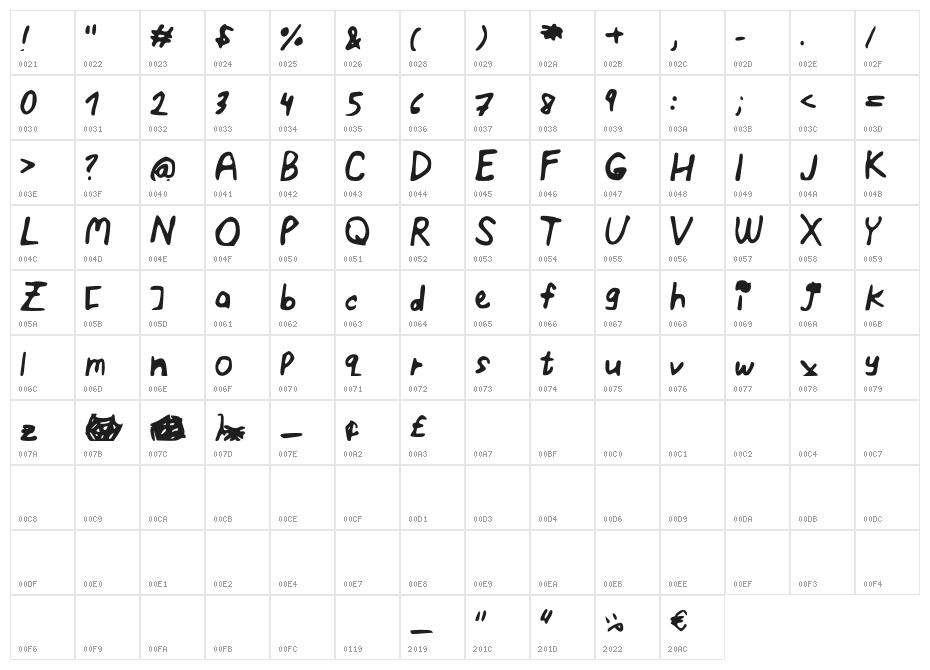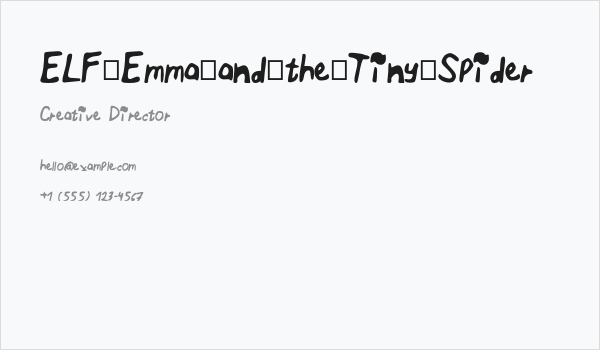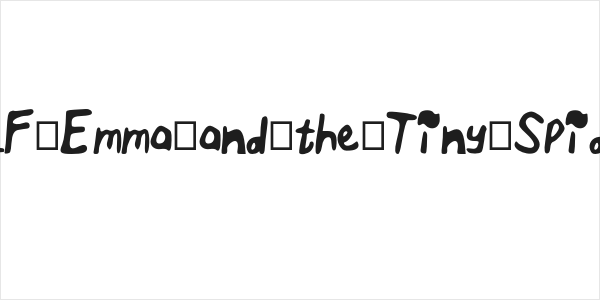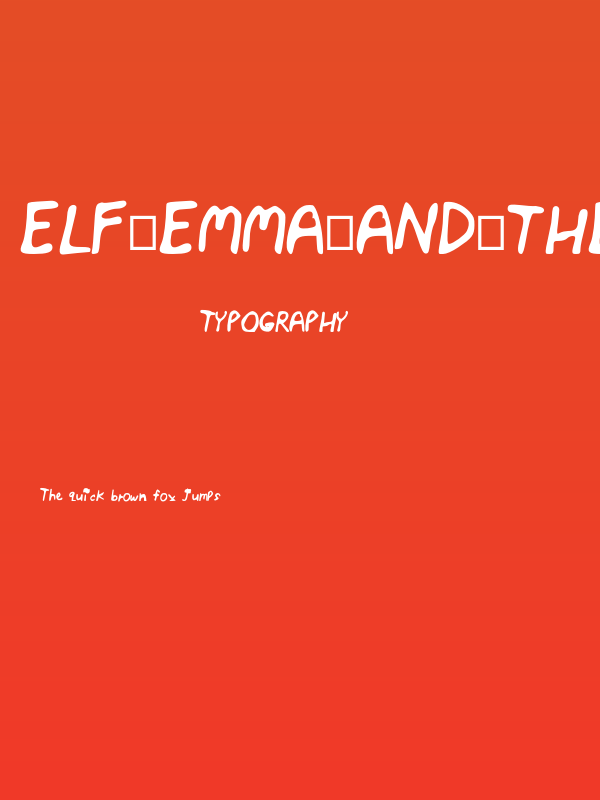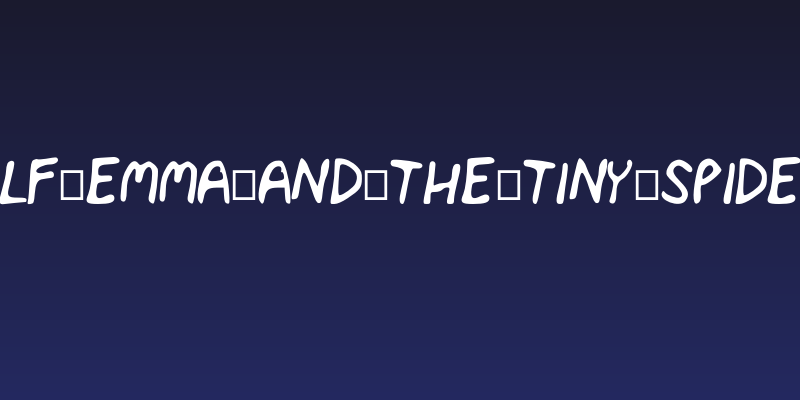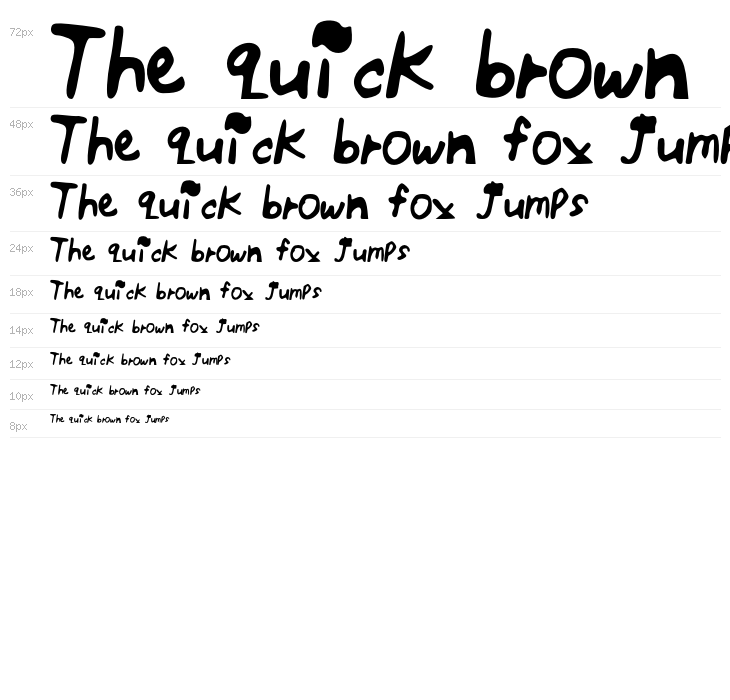
ELF_Emma_and_the_Tiny_Spider Font
ELF_Emma_and_the_Tiny_Spider Description
This playful and whimsical font features a hand-drawn style with irregular, rounded shapes that give it a friendly and approachable appearance. The letters are bold and slightly uneven, adding a sense of movement and energy. The uppercase and lowercase letters maintain a consistent style, with some characters having unique flourishes that enhance the font's charm. The numbers and special characters follow the same playful design, making the font versatile for various creative projects. Its informal and artistic nature makes it ideal for projects that require a personal touch.
| Proposed Projects | Ideal for children's books, playful branding, greeting cards, and creative posters. |